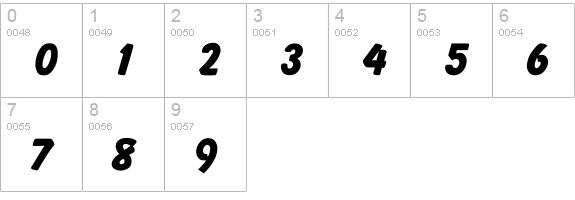
Ballemi Extra Bold Font Details
Ballemi Extra Bold is a strong, high-contrast variant in the Ballemi typeface family \xE2\x80\x94 well suited to headlines, attention-grabbing titles, and strong calls-to-action.
Ballemi Extra Bold font is a striking and powerful typeface that demands attention with its bold and impactful design. The thick strokes and strong presence of this font make it perfect for creating eye-catching headlines, titles, and branding materials. The sharp edges and clean lines of Ballemi Extra Bold exude a sense of confidence and modernity, making it an excellent choice for projects that require a bold statement. One of the best things about Ballemi Extra Bold font is that it is available for free download at FontsMarket.com. This means that you can easily access and use this impressive font in your design projects without any cost. Whether you are working on a poster, logo, website, or any other creative project, Ballemi Extra Bold font is sure to make a bold and memorable impact. Download it now and elevate your designs with this stunning typeface.